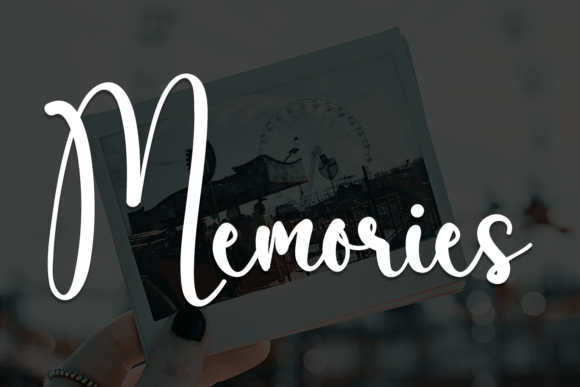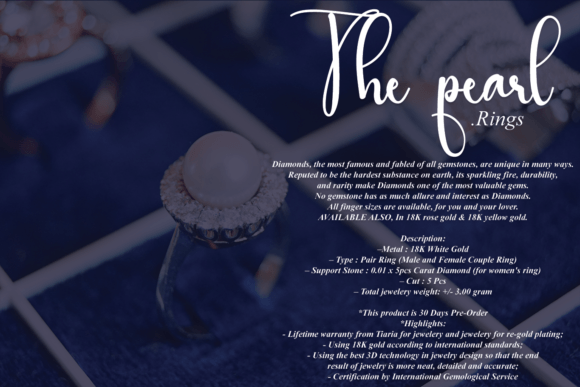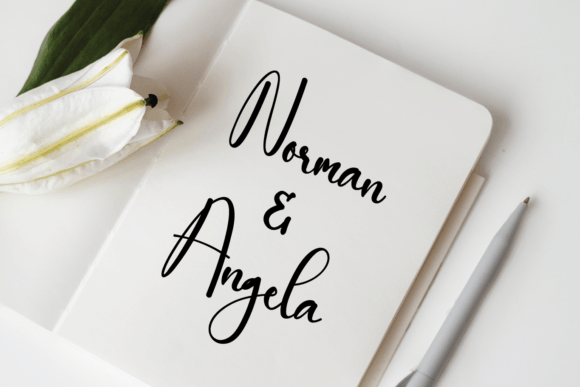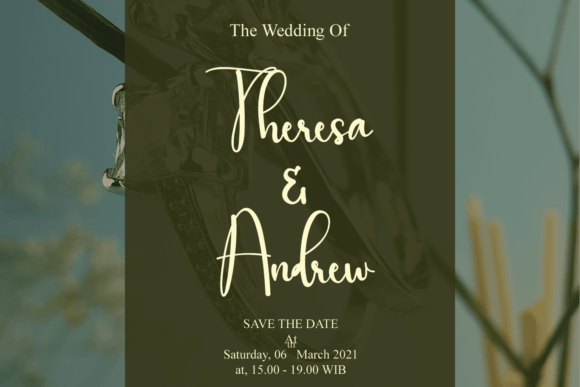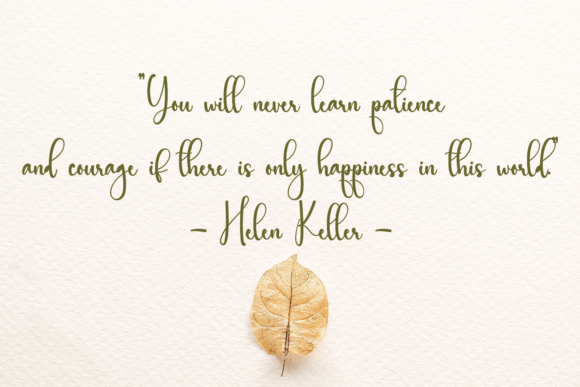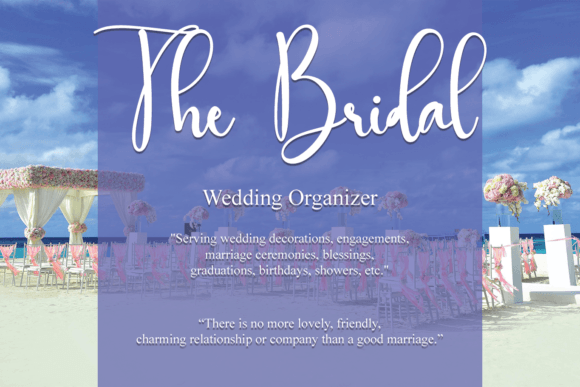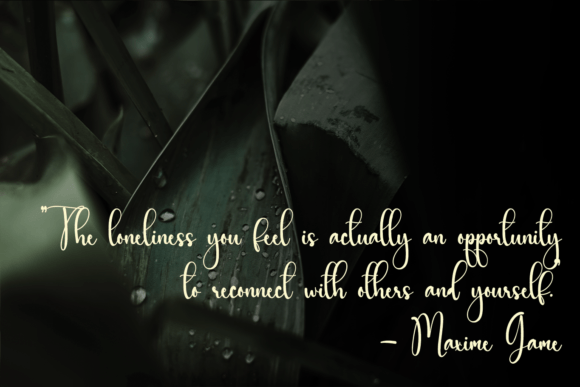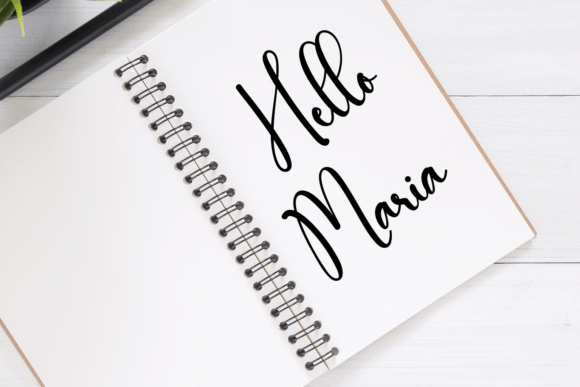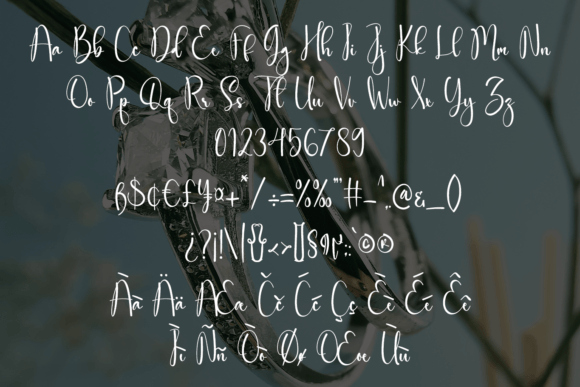
Memories Font
**Memories: A Modern and Whimsical Round-Lettered Script Font for Enchanting Designs**
Memories is a font that carries a unique charm with its round-lettered script style. It seamlessly blends modern aesthetics with whimsical elements, and it has the power to transport your designs into a magical and enchanting world.
The beauty of Memories lies in its round-lettered script characters, each meticulously designed to infuse a sense of modernity and whimsy. The playful curves and smooth lines of this font evoke a sense of wonder, creating a captivating atmosphere that immerses your designs into a truly magical realm.
This font’s versatility ensures it can add a touch of enchantment to various design contexts. You can use it to create spellbinding invitations, captivating posters, whimsical branding, dreamy social media posts, or any creative project where you want to infuse a magical quality.
In summary, Memories is more than just a font; it’s a gateway to a world of enchantment and wonder for your design projects. Its round-lettered script style brings modernity and whimsy together, resulting in a truly unique and captivating font. With Memories, your creative projects will transport your audience to a magical and enchanting place. Choose Memories, and let your designs come alive in a world of wonder.